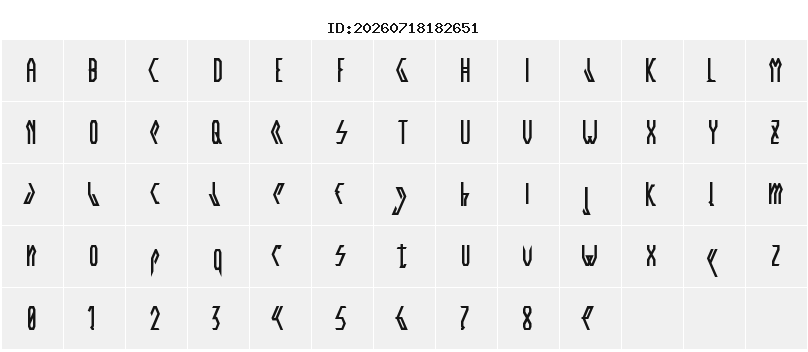
Crwell Preview
About Crwell.ttf
Crwell.ttf is a modern, elegant sans-serif font designed for ultimate readability and visual harmony. Perfect for branding, headlines, web design, and print materials.